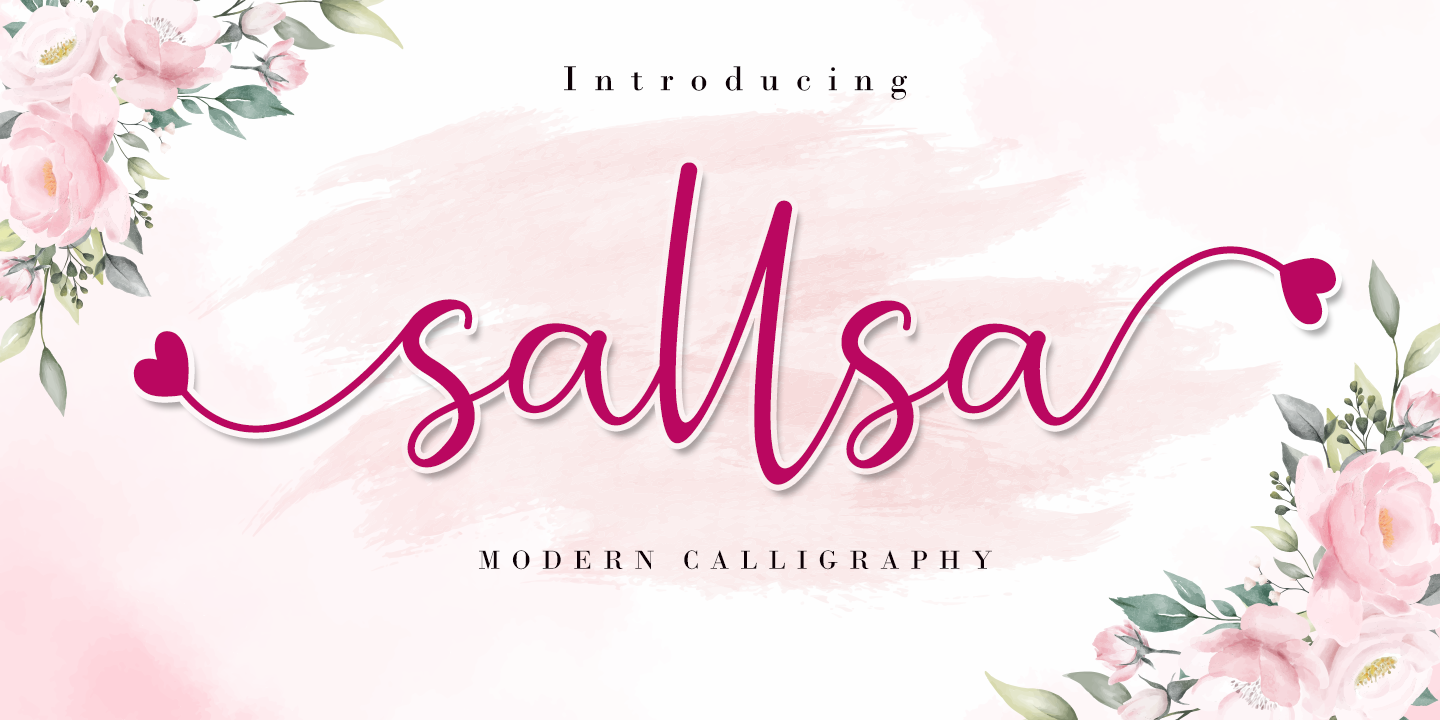
Sallsa Font is perfect for Latin dance studio branding, spicy restaurant menus, vibrant festival posters, salsa music album covers, passionate party invitations, fiery nightclub signage, hot sauce packaging, and energetic cultural event promotions. This dynamic typeface excels in entertainment applications, Latin-inspired designs, and any project requiring passionate energy that captures the heat and rhythm of Latin culture through bold visual expression.
What makes Sallsa Font exciting is its incredible ability to embody the passionate spirit and rhythmic energy of Latin dance culture through dynamically crafted letterforms that pulse with movement and fire. The font features spirited characters with dancing curves and spicy proportions that evoke feelings of celebration and cultural passion, making it ideal for brands seeking to establish vibrant connections with Latin communities and convey authentic cultural energy. Its fiery personality ensures instant recognition of Latin passion and rhythmic celebration.
Sallsa Font family includes multiple weights and styles: Regular, Bold, Light, Medium, Italic variations, and dance-inspired alternates with rhythmic flourishes and passionate embellishments. Each family member maintains the distinctive spicy character while offering comprehensive design options for vibrant cultural campaigns, from smooth flowing text to explosive headlines that capture the heat and passion of Latin celebration through dynamic typography.
Whether you're designing Latin entertainment brands or creating passionate cultural campaigns, Sallsa Font Free Download provides the perfect typography solution for rhythmic branding needs. This font transforms ordinary text into passionate visual celebrations that communicate Latin fire and cultural rhythm. Dance studios and Latin lifestyle brands choose this typeface for its ability to convey spicy passion through dynamically crafted letterforms that dance across designs with authentic Latin energy and cultural pride.